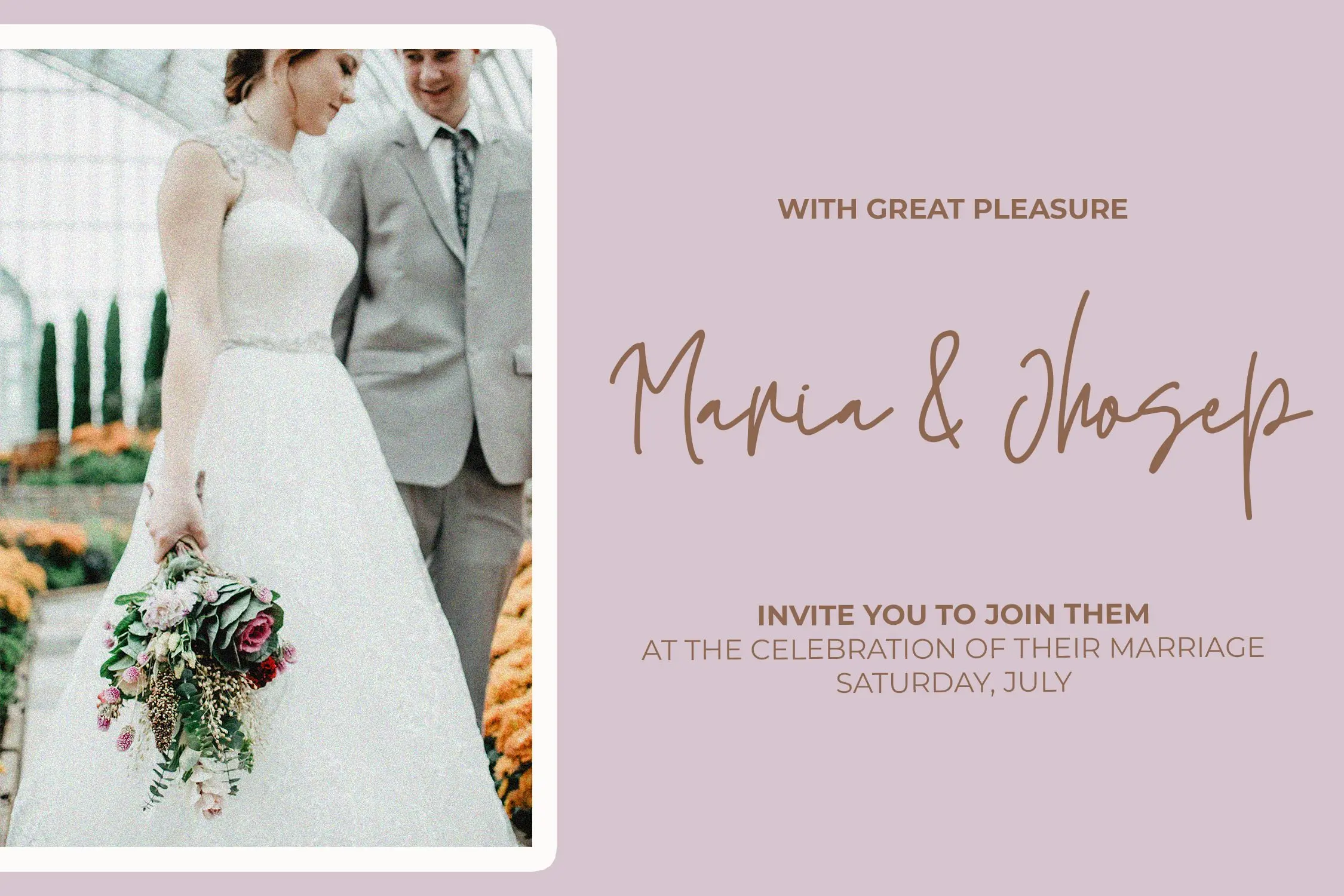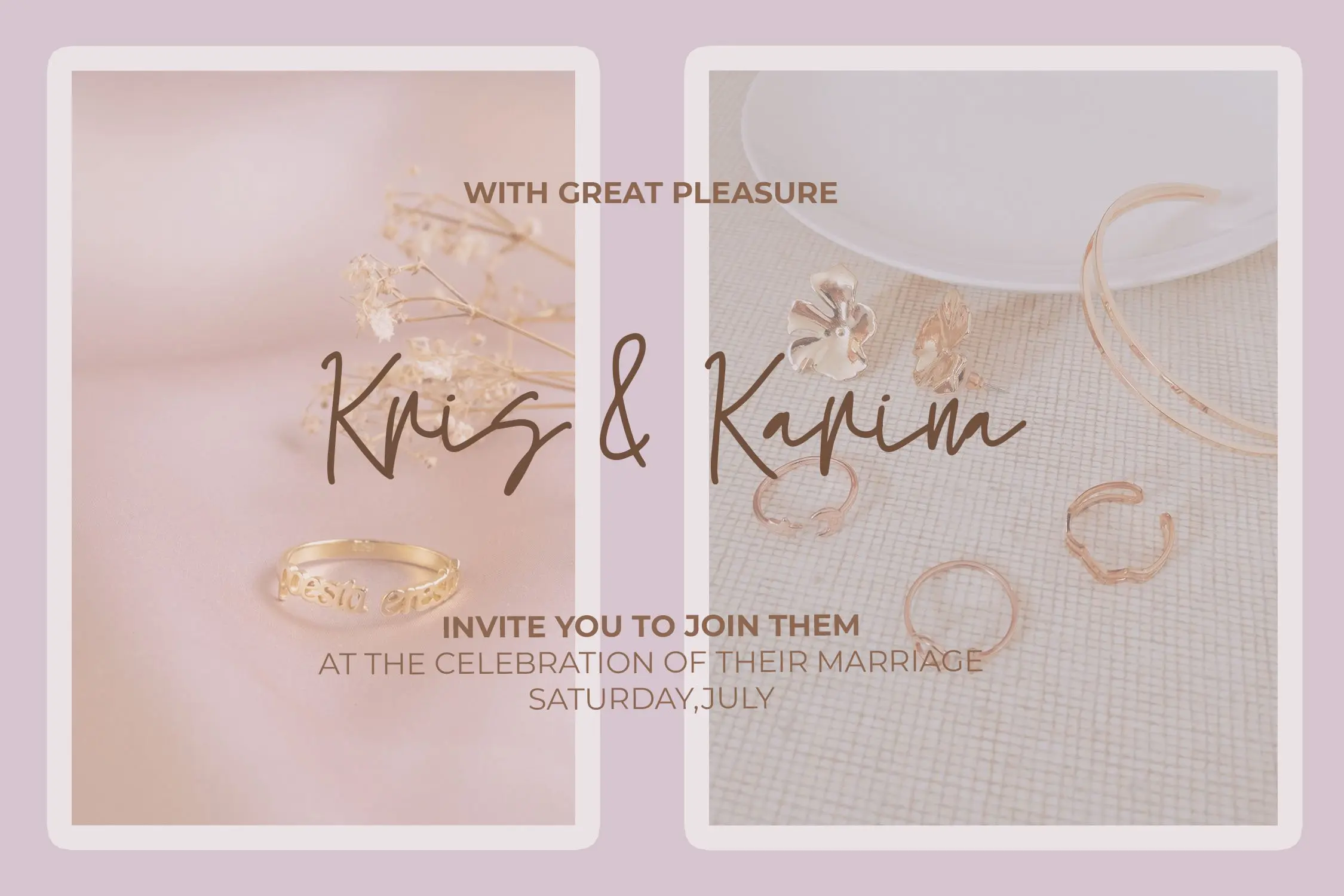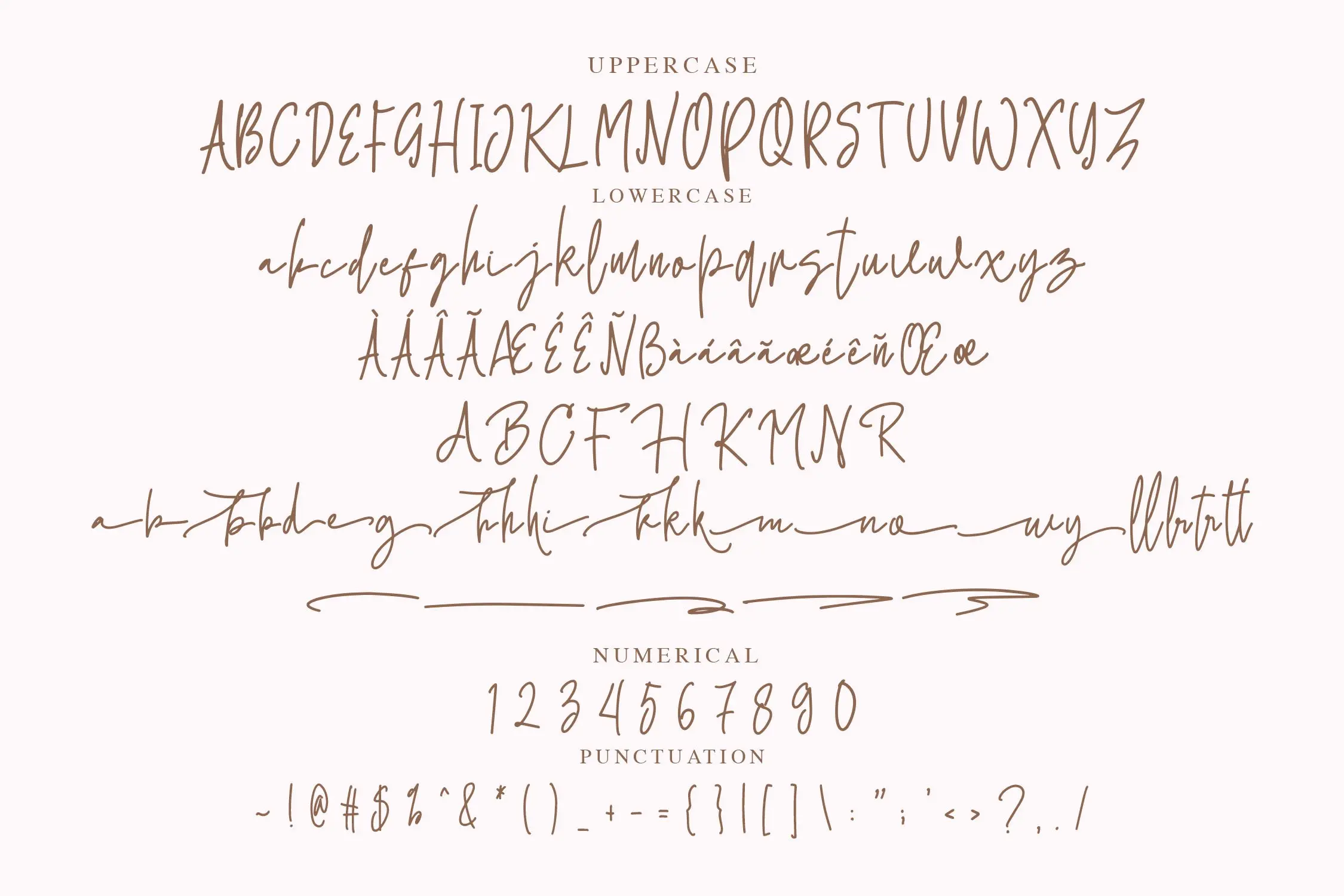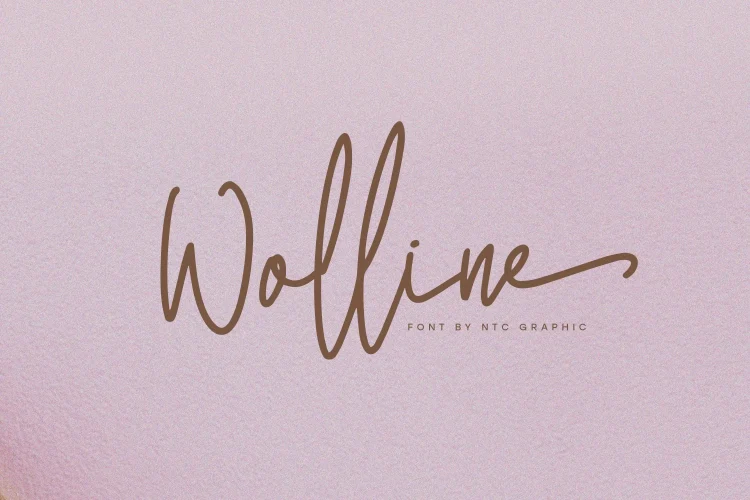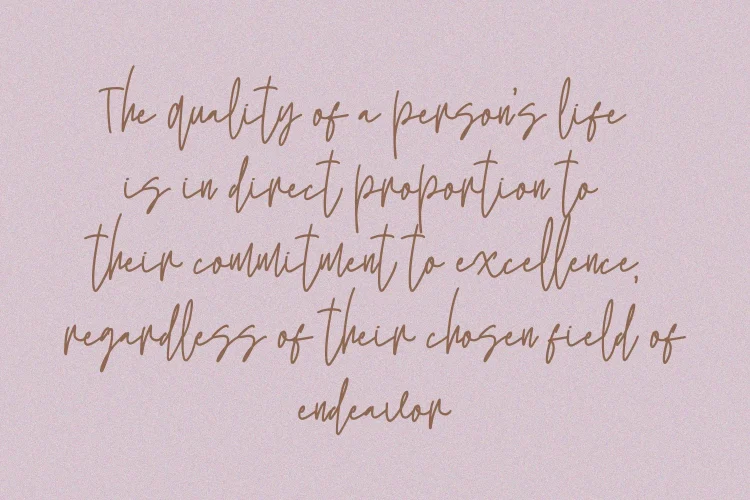
Wolline is a handwritten script font with a minimalist monoline style. This font style is made with minimalist shapes font characters are so beautiful. Can be applied to support the graphic appearance of the product to be more attractive and unique.
- Ligature
- Stylistic Alternate
- Swashes
- Multilingual Support